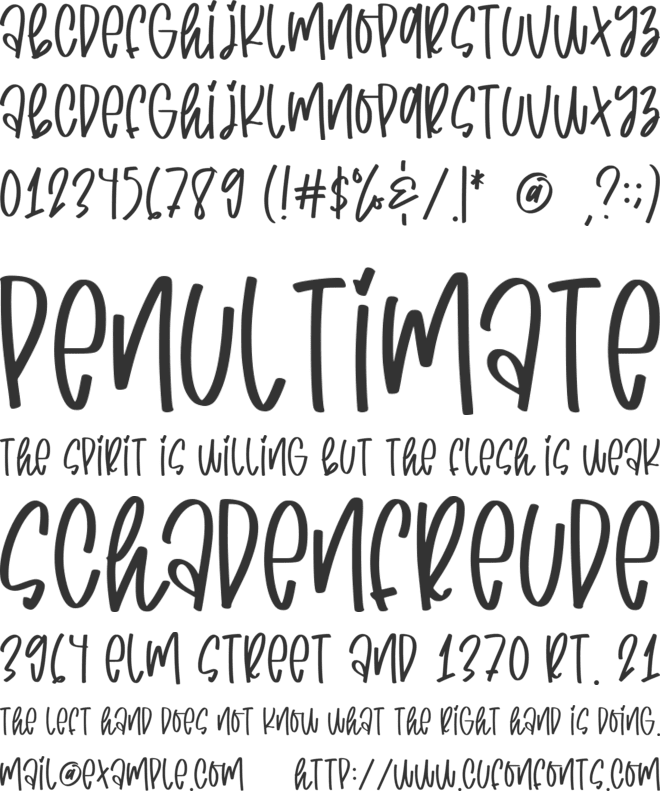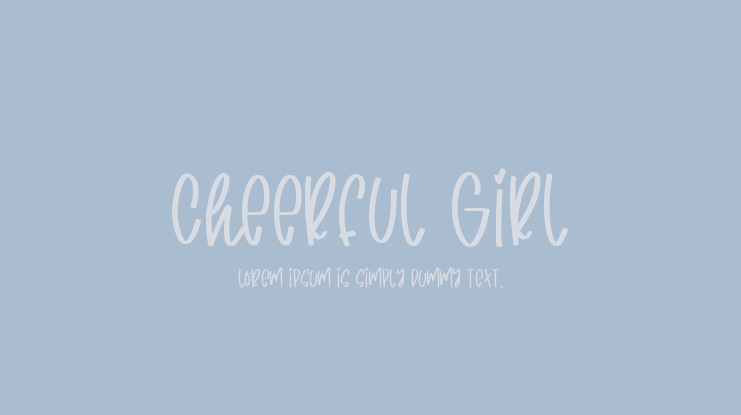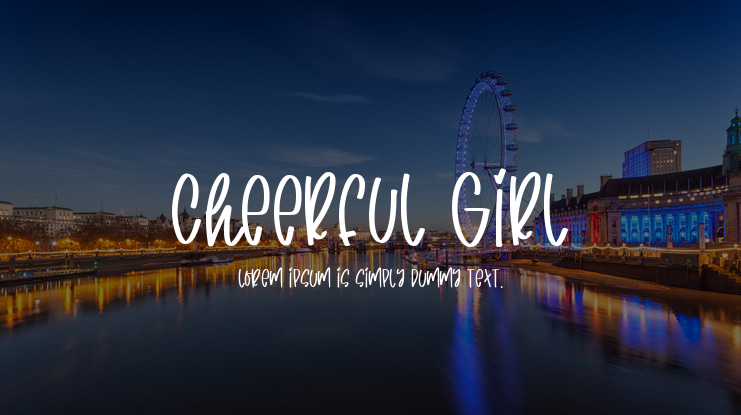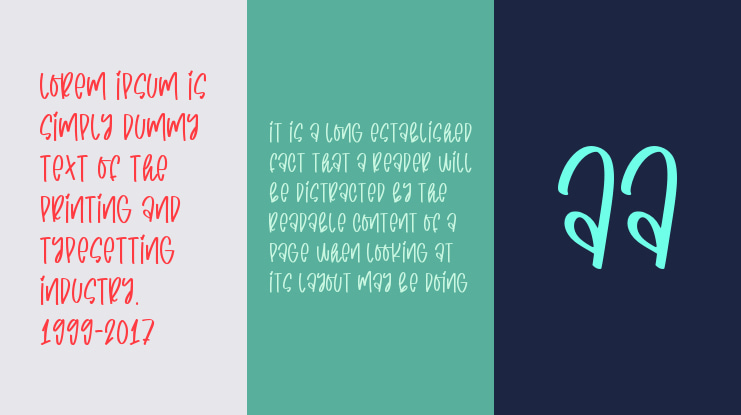
cheerful girl Font
CHEERFUL GIRL - quirk handwritten font -
It is great for quotes, card, banner, book, cutting, silhouette, social media content, and anything of craft project. I created the doodles to make this product perfect. and it is very easy to access. You will get it only on the premium version.